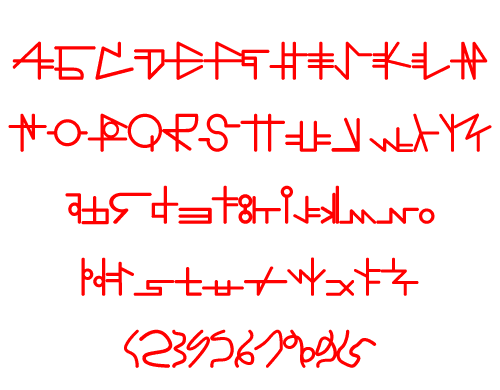
Illiteracy. The inability to read raises questions about the origin,
relevance and importance of the alphabet. Letters become merely symbols,
shapes with no meaning. Without the assigned value, the illiterate
becomes lost in a maze of symbols,forms, written instructions and
news papers. The illiterate exists with a handicap navigating through
the world of information. The Lost font is based on the
idea of letters as parts in a map. Its shapes box opportunity in.